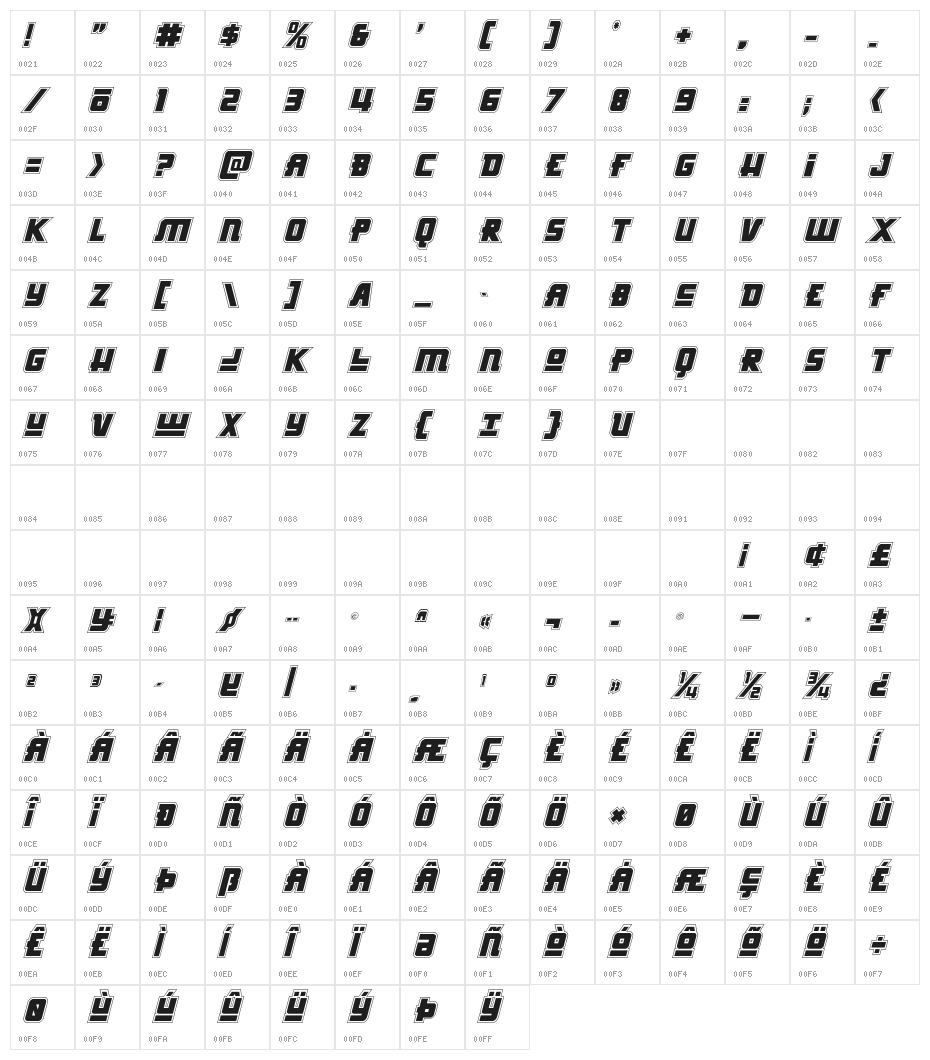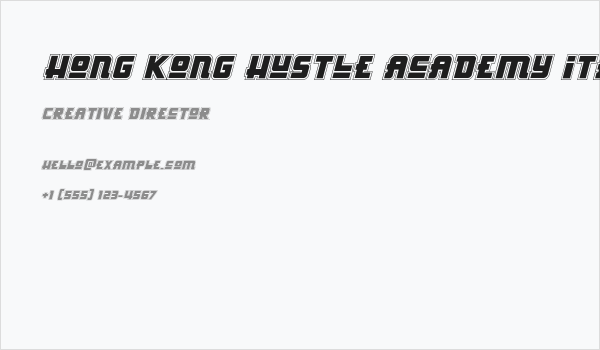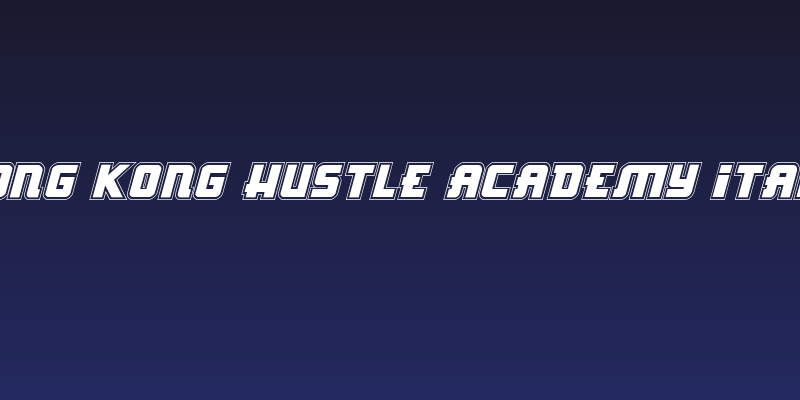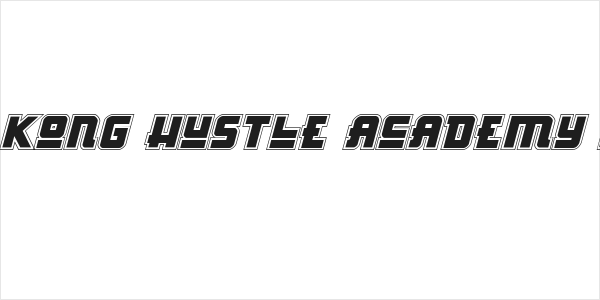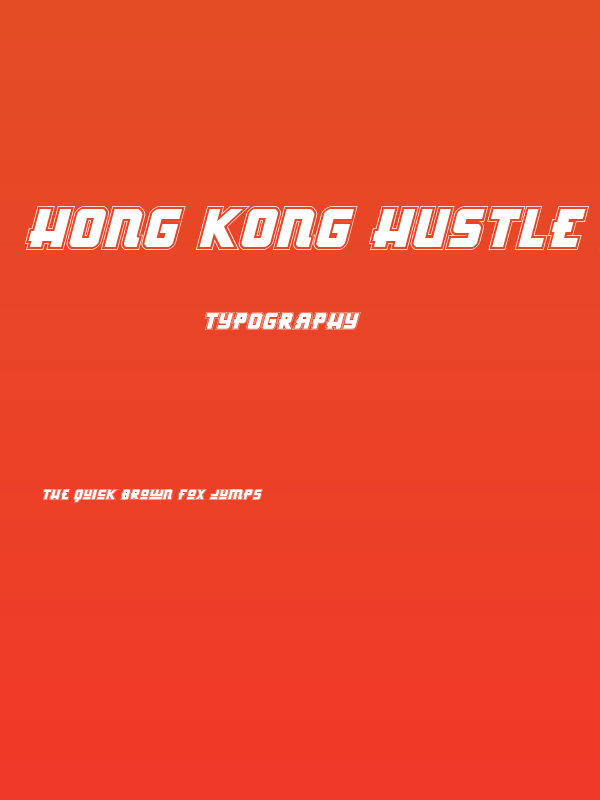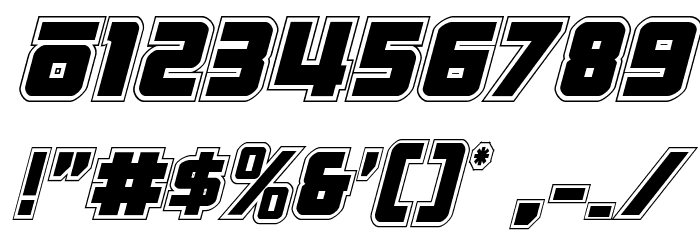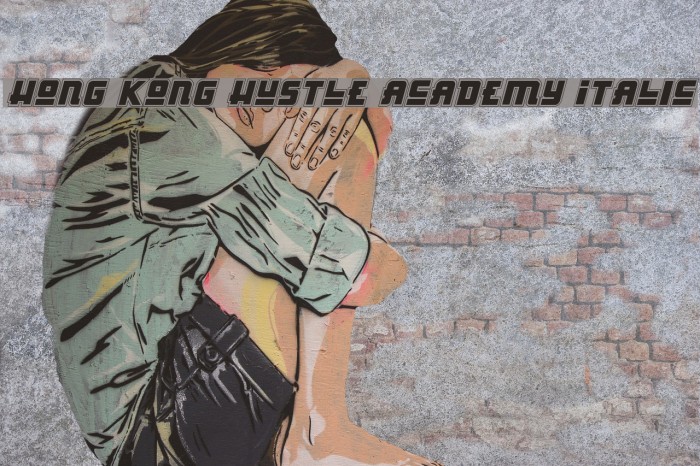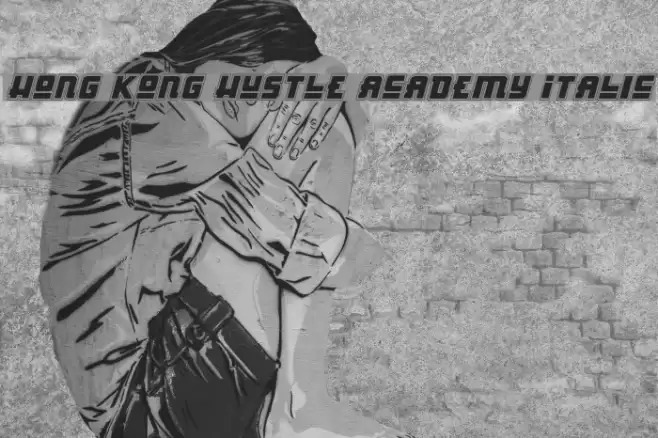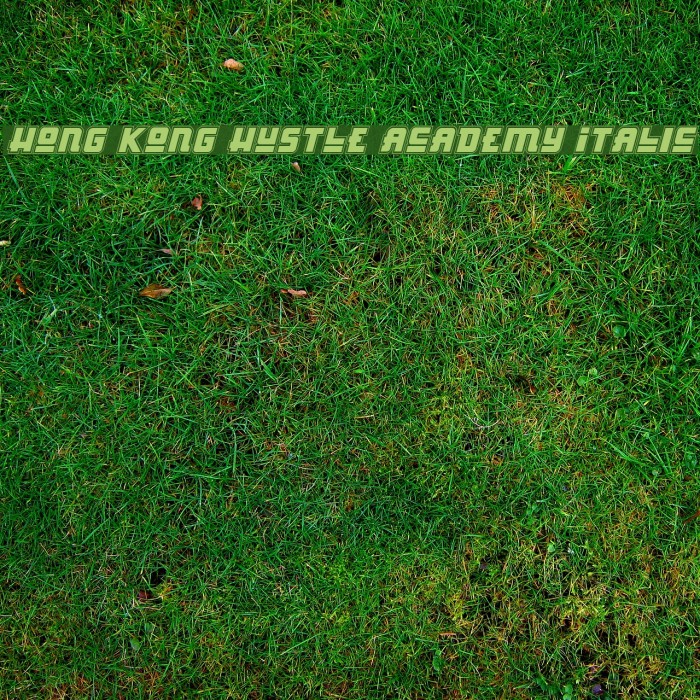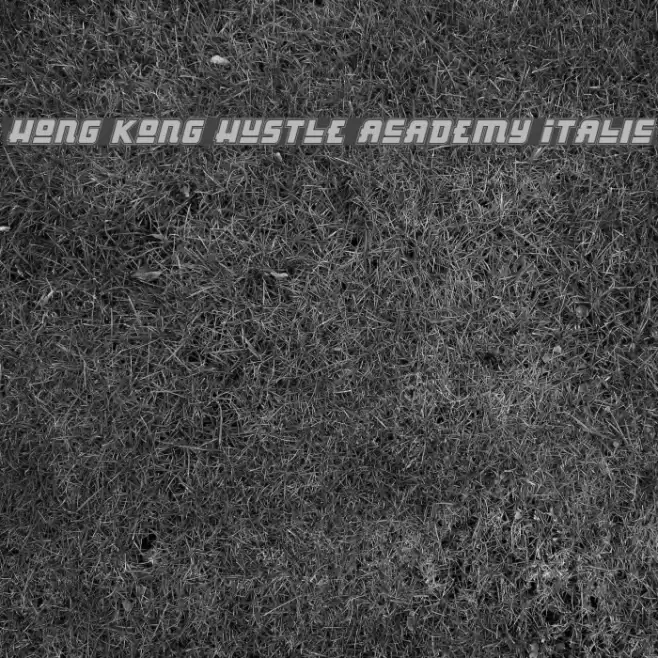
Hong Kong Hustle Academy Italic Font
Hong Kong Hustle Academy Italic Description
This font features a bold and dynamic style with a distinct italic slant, giving it a sense of movement and energy. The characters are outlined with a thick border, creating a layered effect that enhances its visual impact. Each letter is designed with sharp angles and geometric shapes, contributing to a modern and futuristic appearance. The font maintains a consistent weight throughout, ensuring readability while still making a strong statement. Its unique design is suitable for projects that require a bold and eye-catching typeface.
| Proposed Projects | Ideal for use in sports branding, video game titles, posters, and urban-themed designs. |